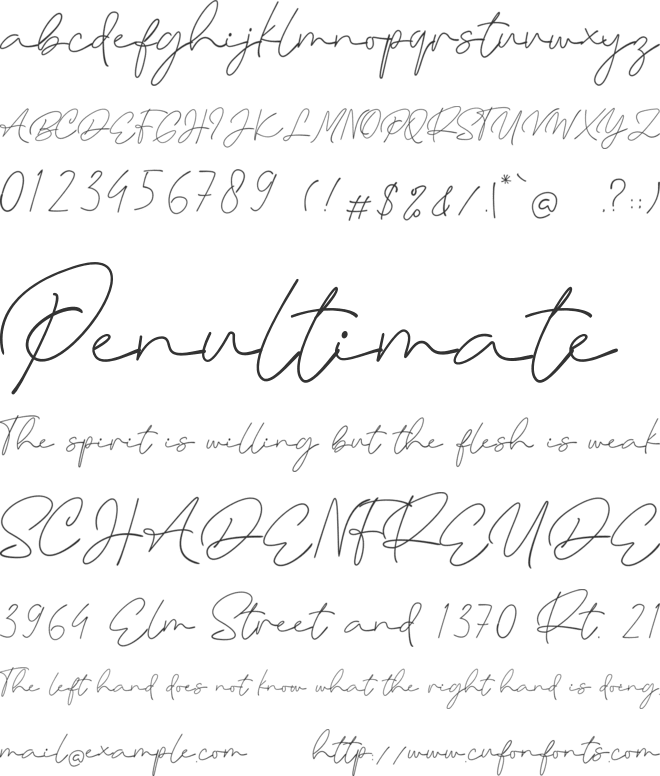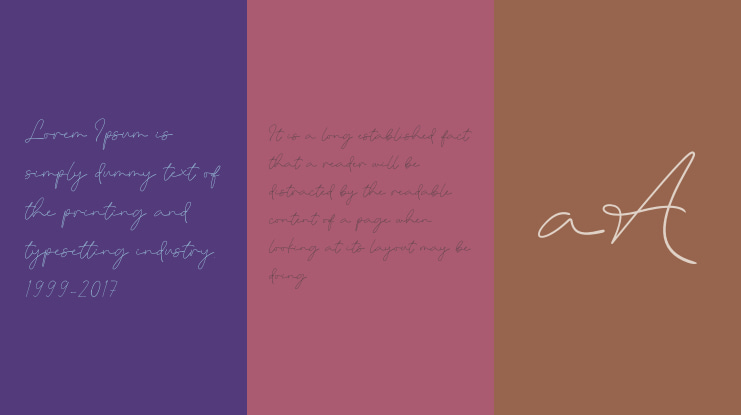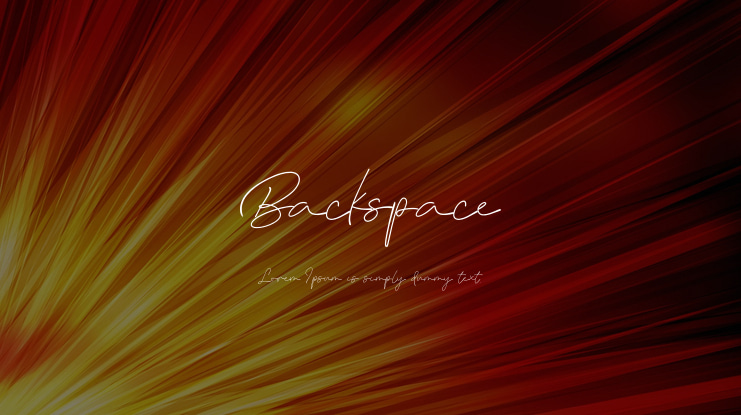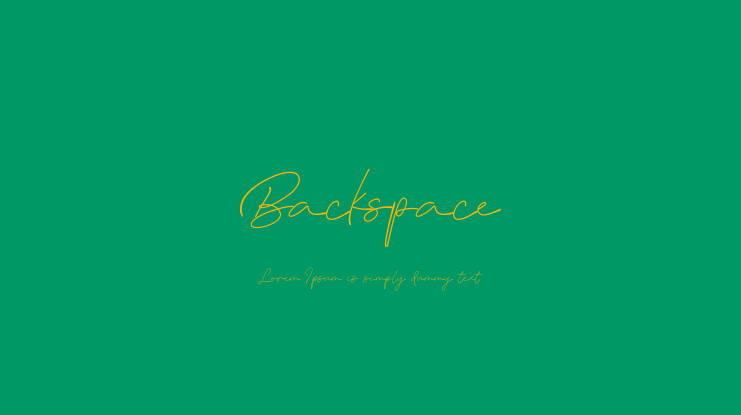
Backspace Font
Backspace is a modern monoline handwritten font. It can be used for wedding invitations and wedding calligraphy, quotes, feminine or organic logos, small business branding, business card, packaging, T-shirts, and many more!